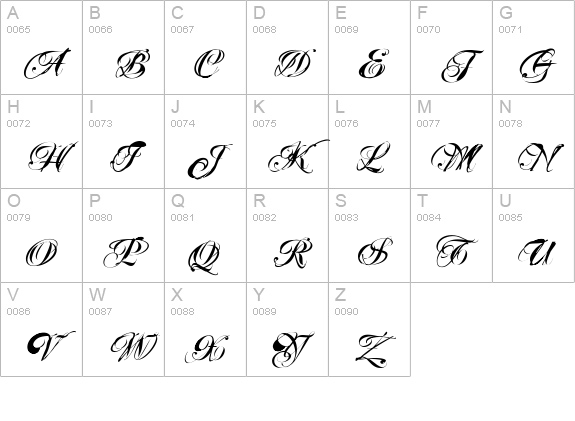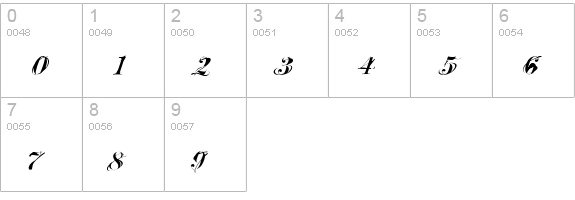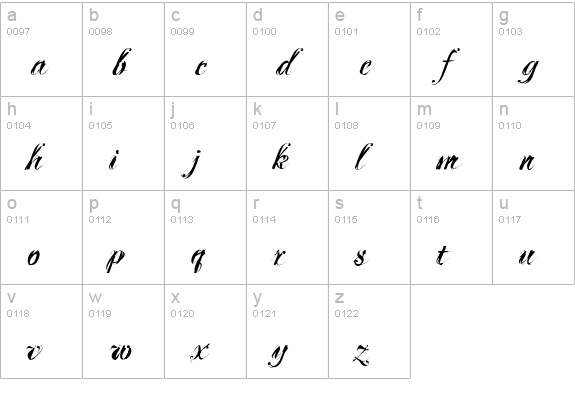
Mascara Font Details
Mascara font is a stunning typeface that exudes elegance and sophistication. Its sleek and fluid lines make it perfect for creating eye-catching designs that demand attention. This font is the epitome of modernity, with its bold and dramatic strokes that add a touch of glamour to any project. What sets Mascara font apart is not only its impeccable design but also its versatility. Whether you are working on a logo, a poster, or a website, this font will effortlessly elevate your design to new heights. It seamlessly blends both classic and contemporary elements, making it suitable for a wide range of applications. One of the most exciting aspects of Mascara font is that it is freely available to download at FontsMarket.com. This means that you can access this stunning typeface without any cost, making it a valuable asset for both personal and commercial projects. With its extensive character set and multiple weights, Mascara font offers endless possibilities for creative expression. Whether you are a professional designer or someone looking to add a touch of sophistication to your personal projects, Mascara font is the perfect choice. Its timeless beauty and freely accessible nature make it a must-have in every designer's toolkit. So why wait? Download Mascara font today from FontsMarket.com and let your creativity soar.